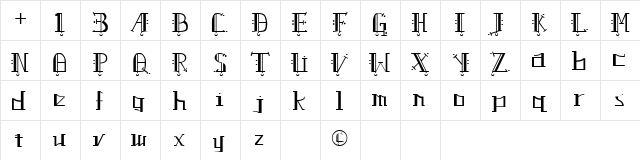
Uptown Regular Free Font
Uptown Regular
Design Context for Uptown
Uptown is a composed and adaptable typeface that performs quietly and consistently across a wide range of design contexts.